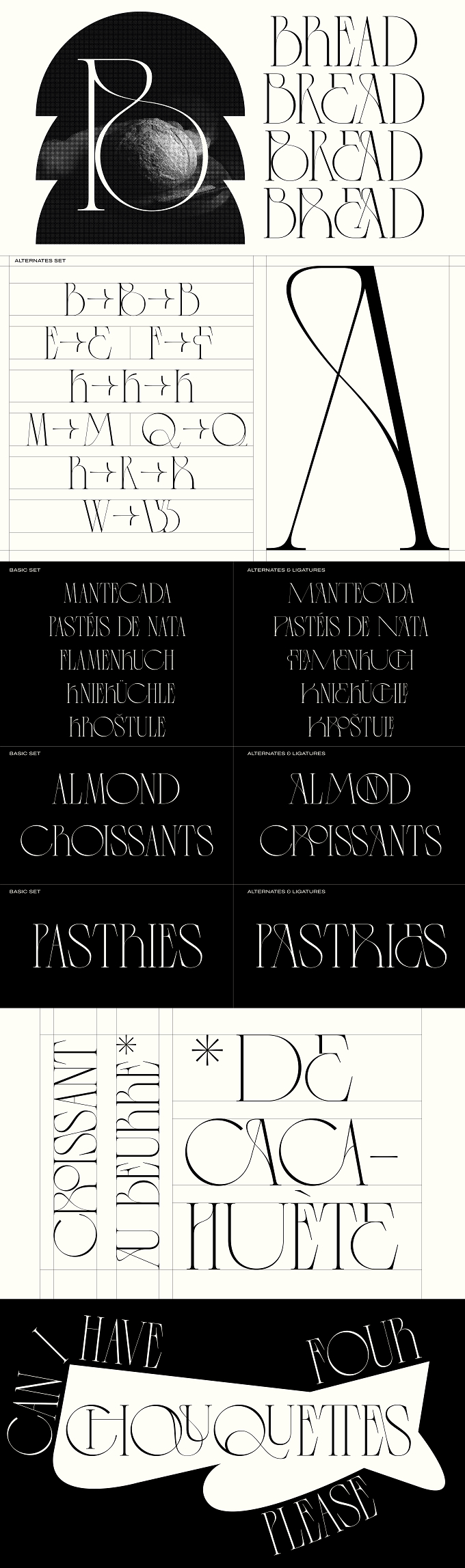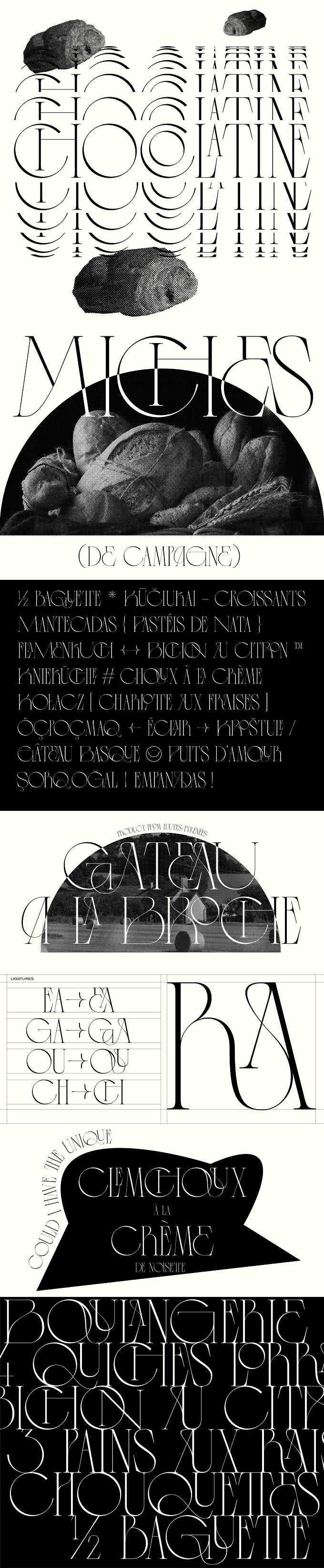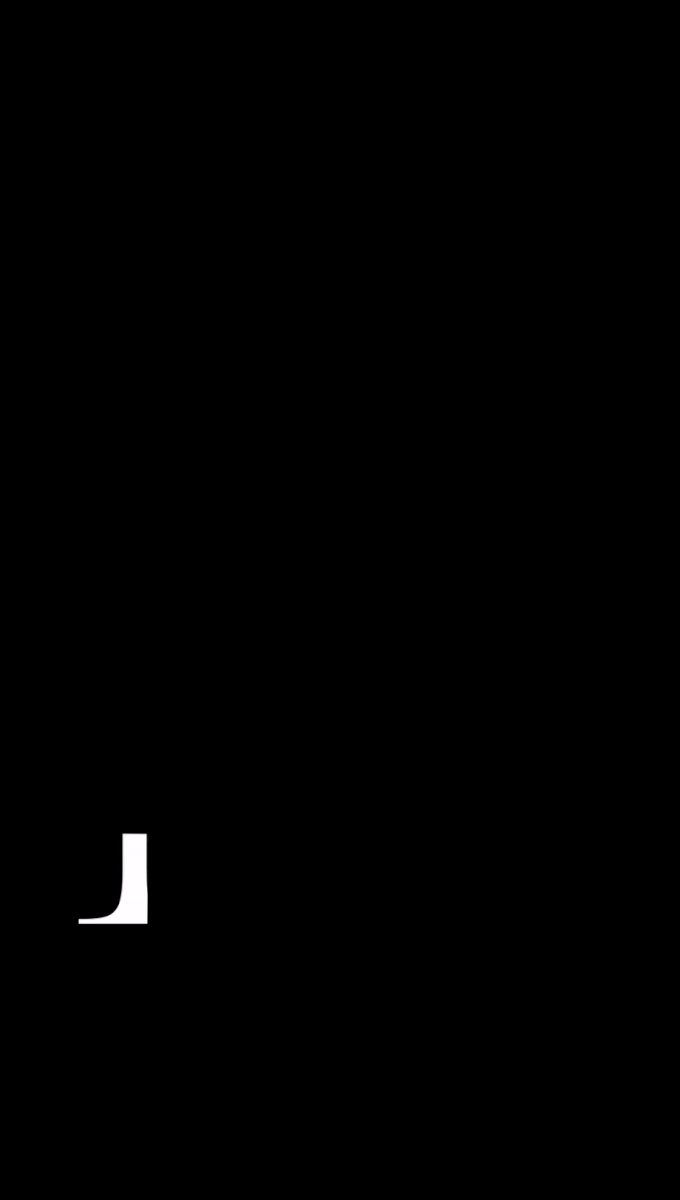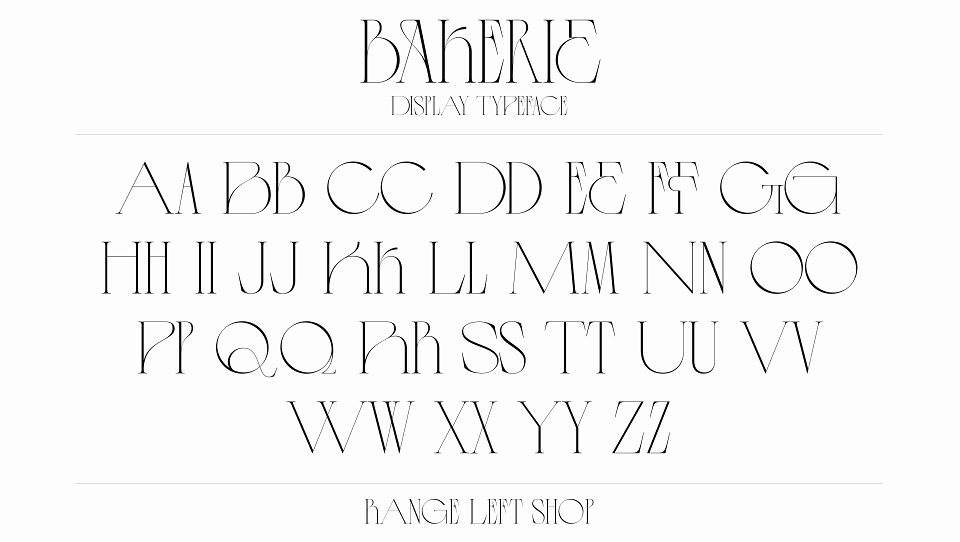
Bakerie is a display typeface, designed with letterforms of contrasting widths. Fluid yet sharp, Bakerie is inspired by the elegance of the art and type forms of the late 19th century. Its name references the changing curves of bread dough as it is kneaded, pushed and pulled into wonderful shapes. Its range of alternative letters and ligatures allow for inventive combinations, ideal for titles and logotypes.